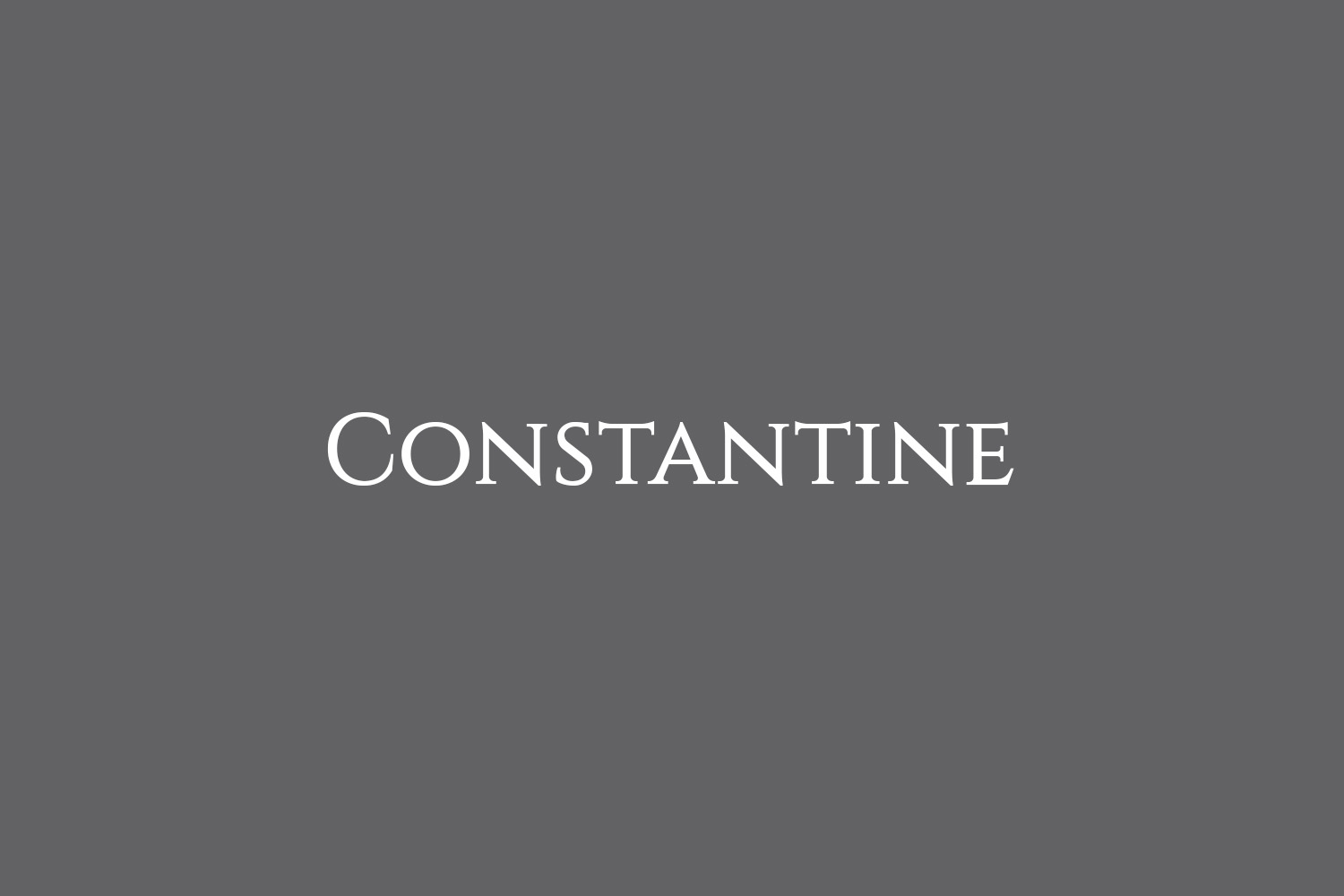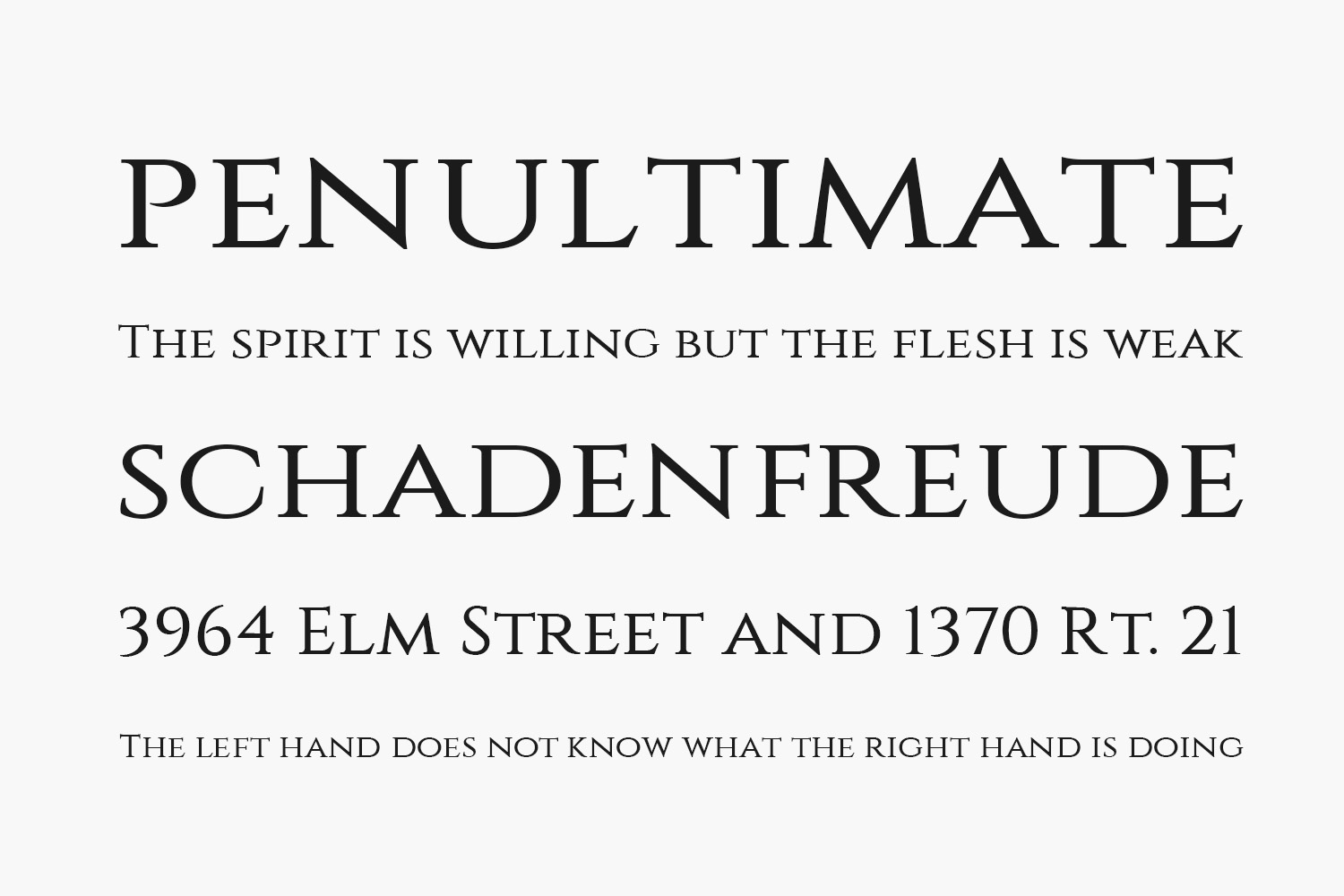
Constantine Free Font is a roman style typeface inspired by emperor Constantine the Great. He was born in nowadays Serbia, in the city Naissus (Nish), and ruled from 306 to 337 AD. The font is based on Cinzel with full Serbian and Cyrillic support, including the Chi-Rho symbol. Constantine Free Font was designed by Dukom Design and is free for personal use only. Please purchase the full version for commercial use.